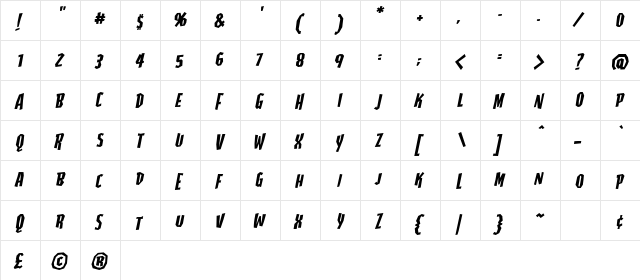
Highjinks BB Italic
Design Context for Highjinks BB Typeface
Highjinks BB is a composed and adaptable typeface that performs quietly and consistently across a wide range of design contexts. The dynamic lean of this cut emphasises speed and emphasis in any layout.
Pro Tip: Try Highjinks BB for annotation and caption copy alongside an upright companion — the contrast in angle creates a dynamic but ordered typographic system.